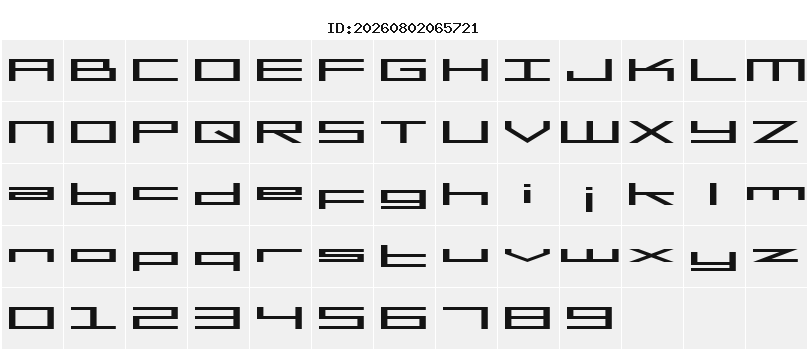
MGS2 Menu Preview
About MGS2 Menu.ttf
MGS2 Menu.ttf is a modern, elegant sans-serif font designed for ultimate readability and visual harmony. Perfect for branding, headlines, web design, and print materials.